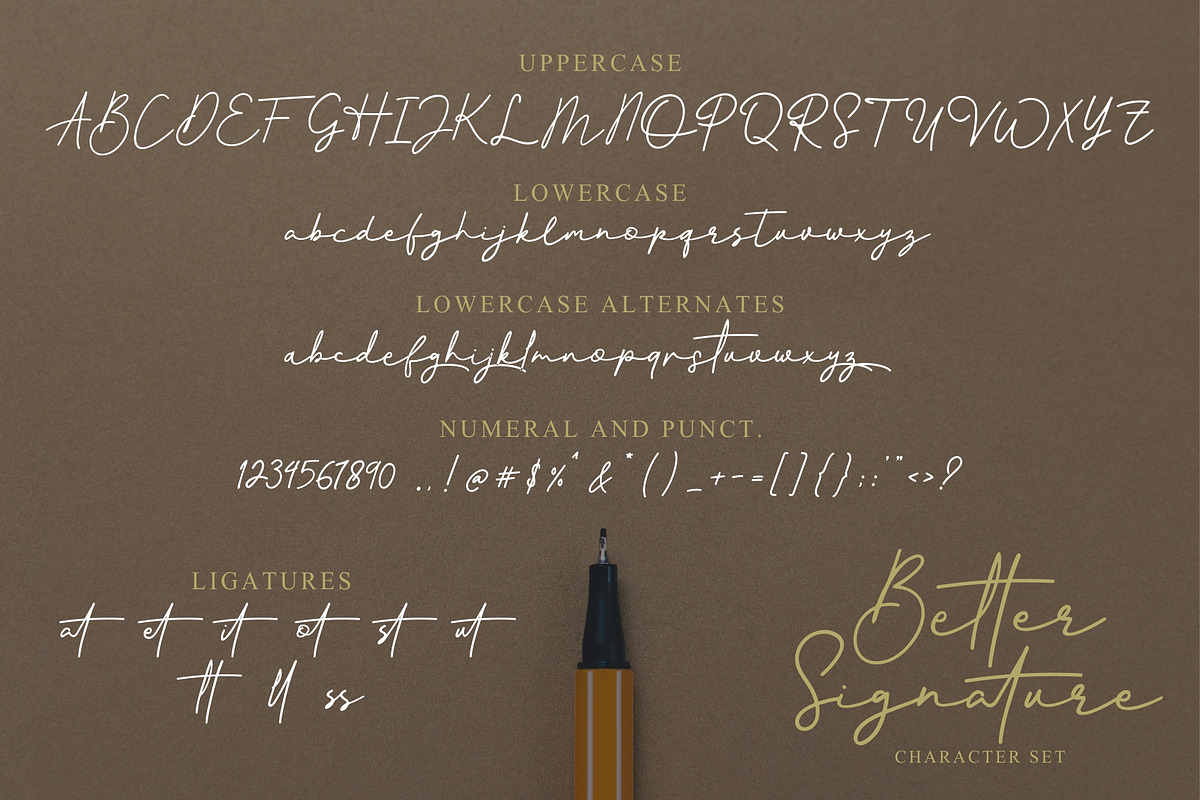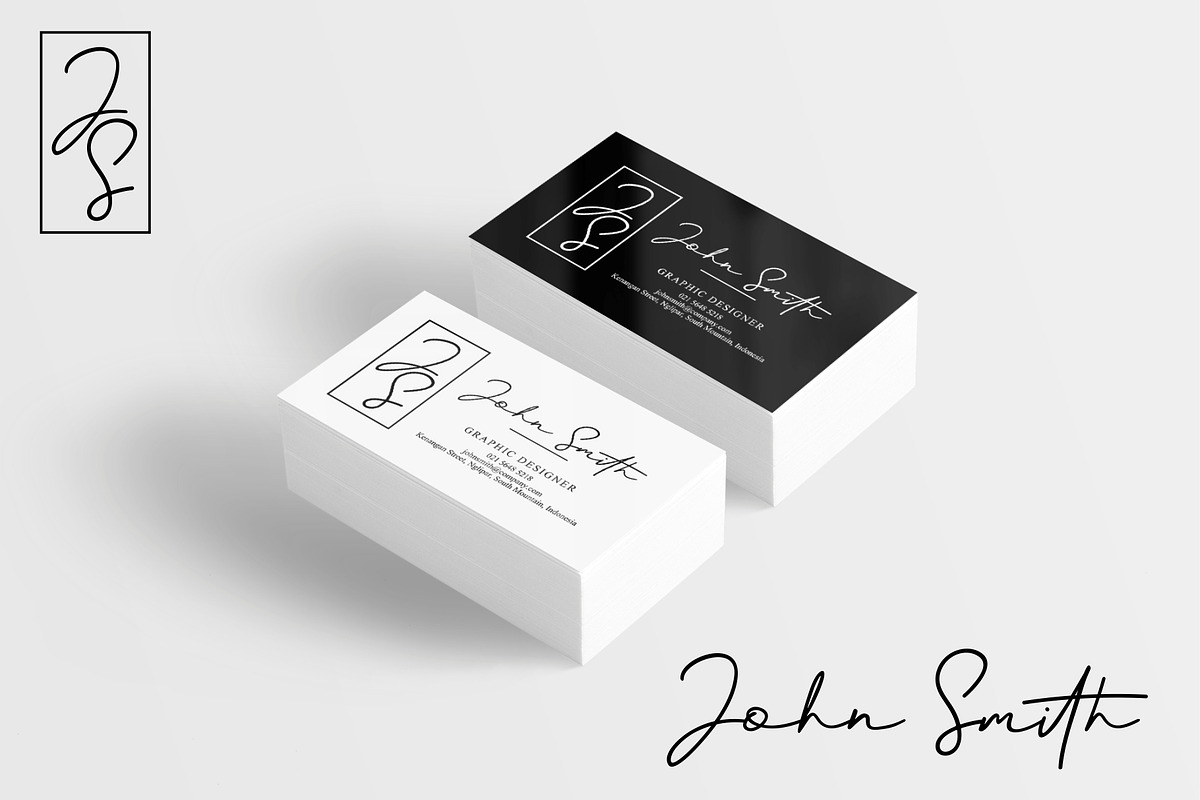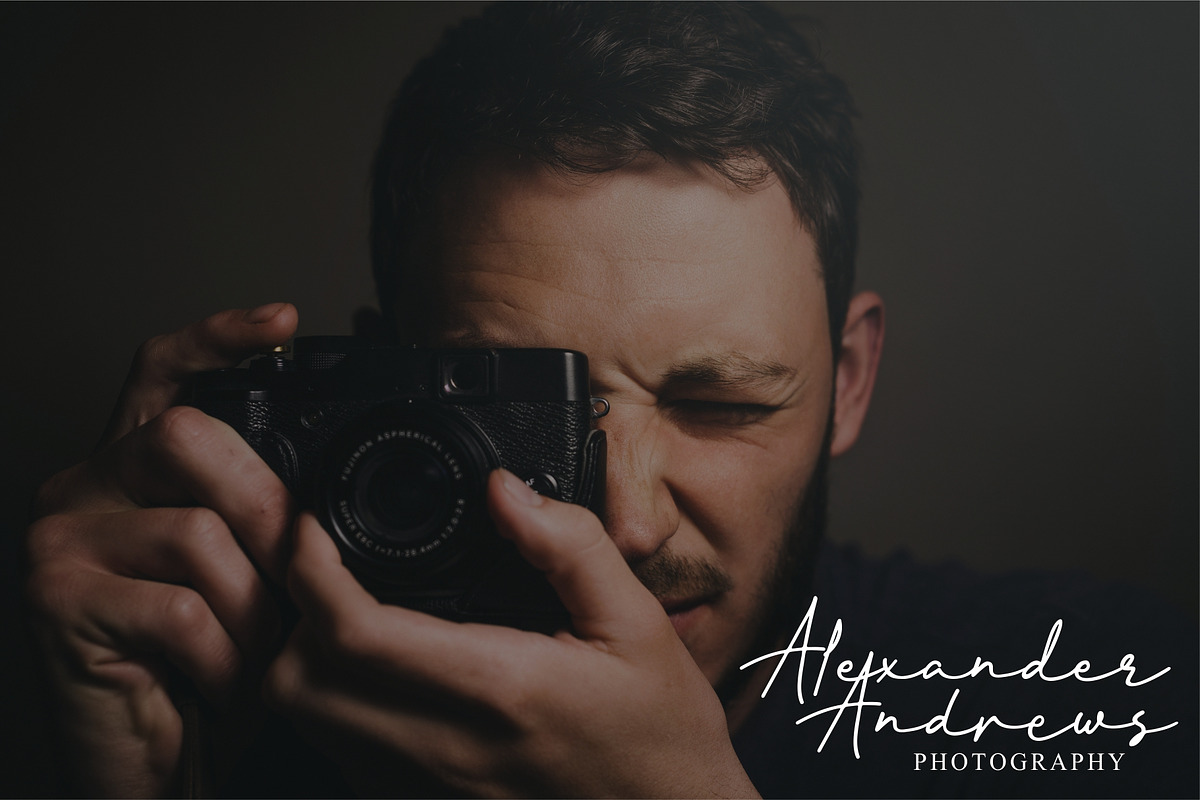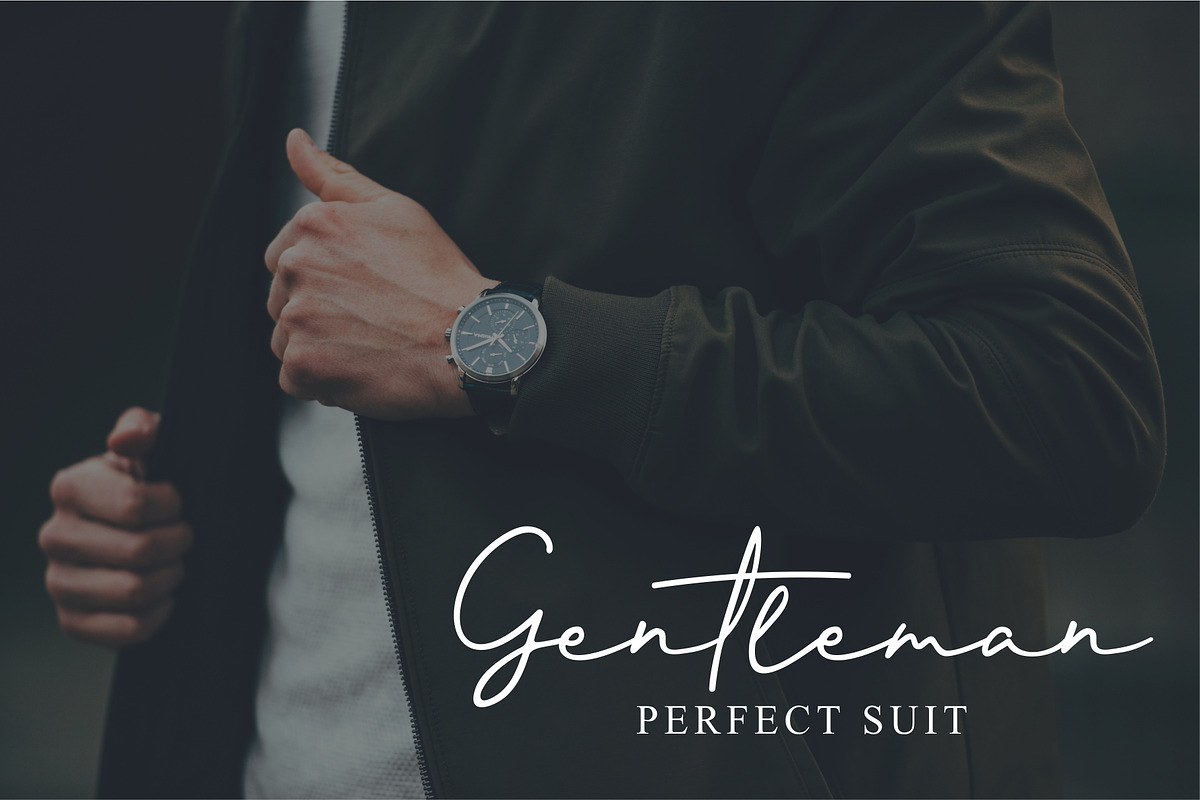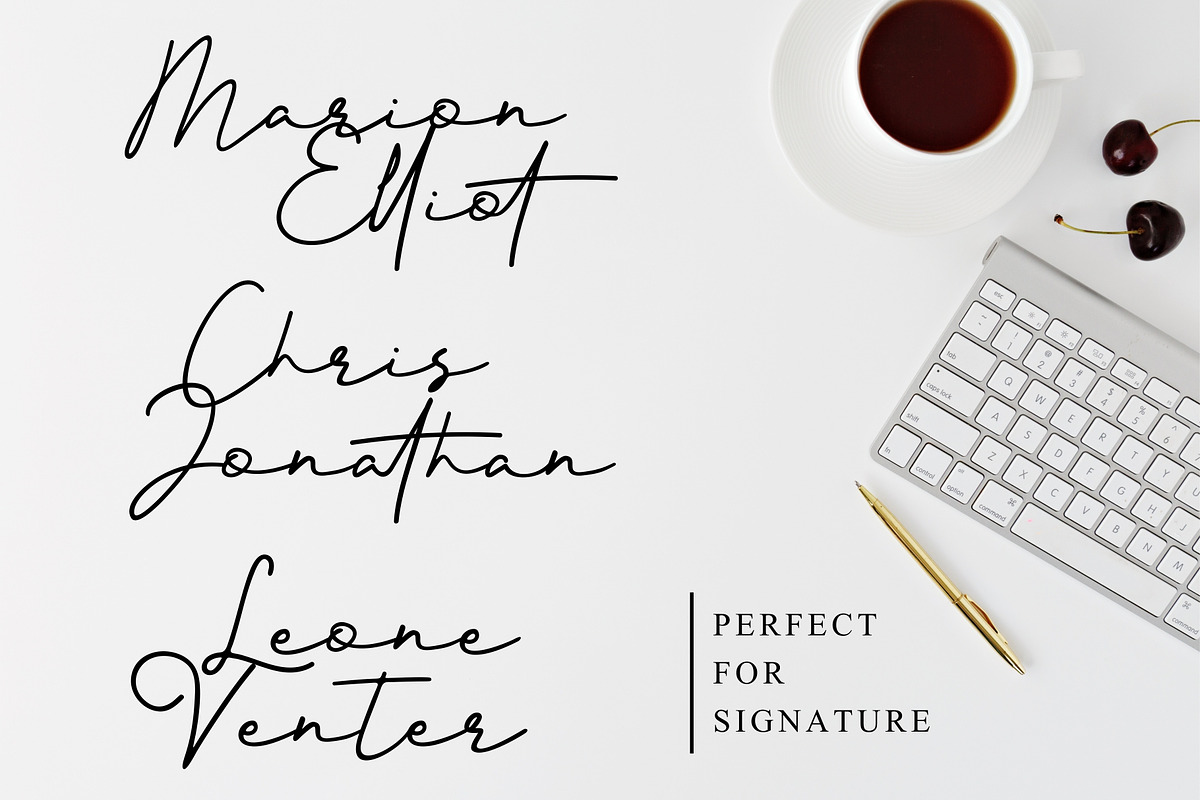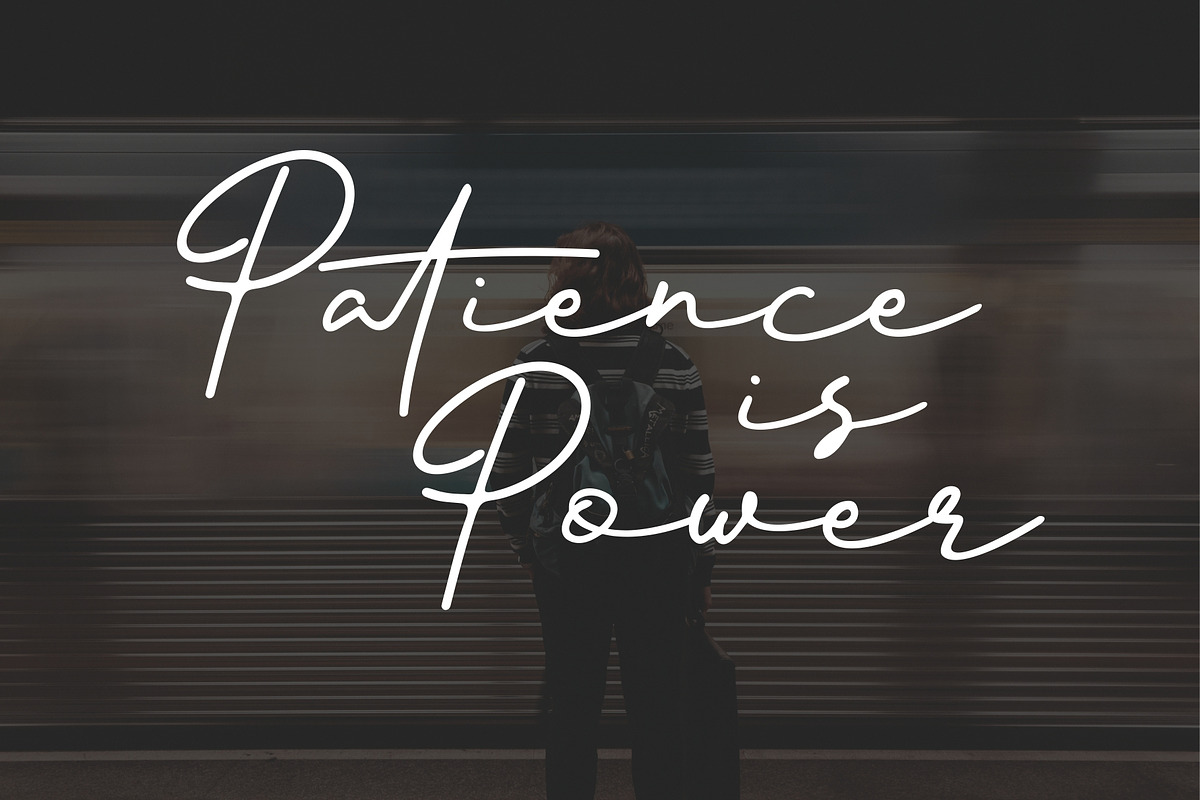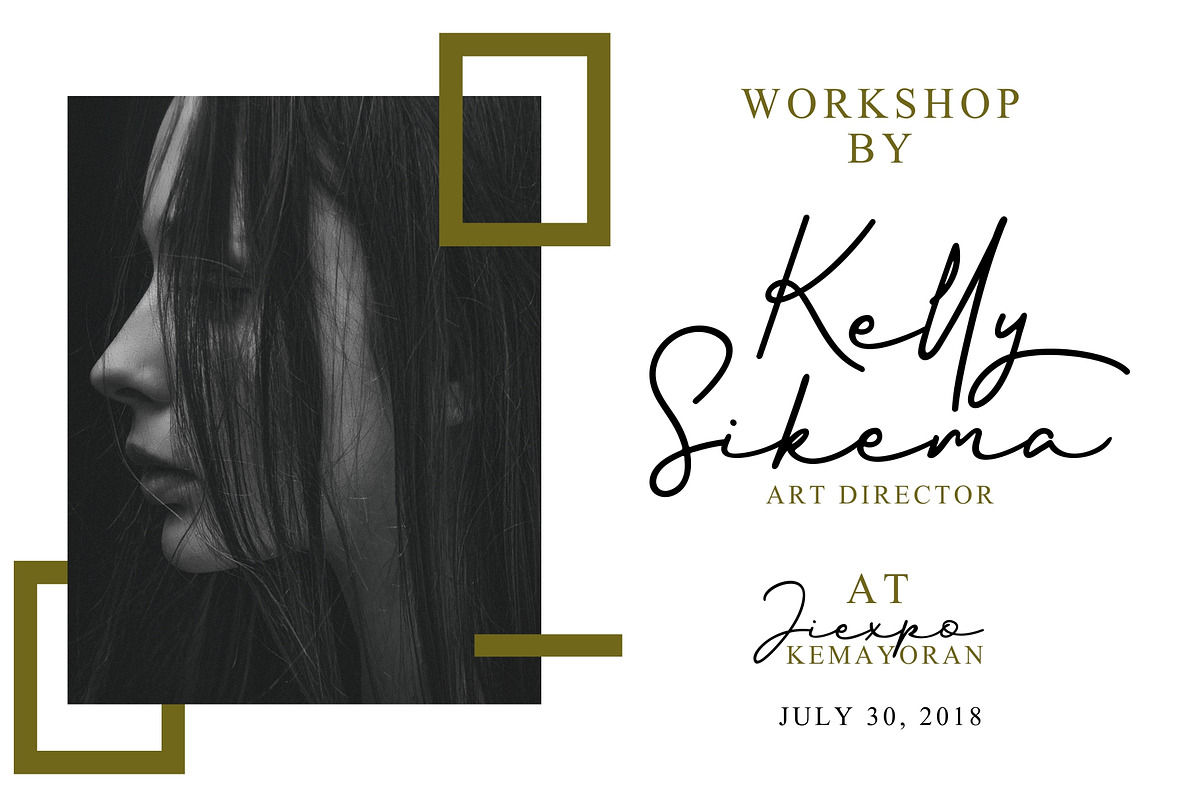
Better Signature Font
We introduce our new product called Better Signature.
Better Signature is a signature font that you can use to make a design for logo branding, poster headline, magazines, book titles, business cards, beautiful fashion designs, advertisements, product designs, wedding invitation, signature or handwritten quote.
Better Signature Features :
Upper and Lowercase Standard Characters, Punctuation, Numerals.
Lowercase Alternates.
Why Better Signature Font is worth a look
Better Signature Font by YdhraStudio fits naturally into Branding, posters, packaging, typography.